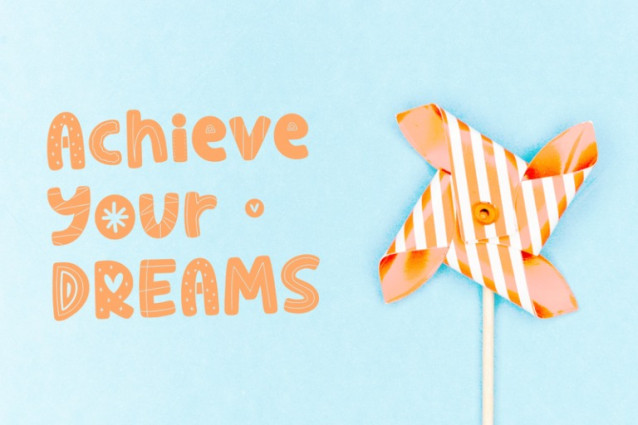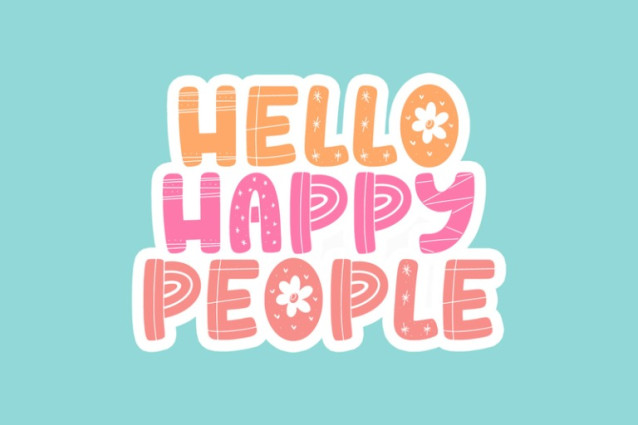
Doodle Show Font
Doodle Show Font is a whimsical handwritten font that brings a playful touch to your designs. Crafted with a fun style this font captures the essence of imagination. The doodle elements add a sense of whimsy and delight to your text. From hearts and stars to arrows and swirls, these charming details enhance the font’s overall aesthetic and bring your designs to life.